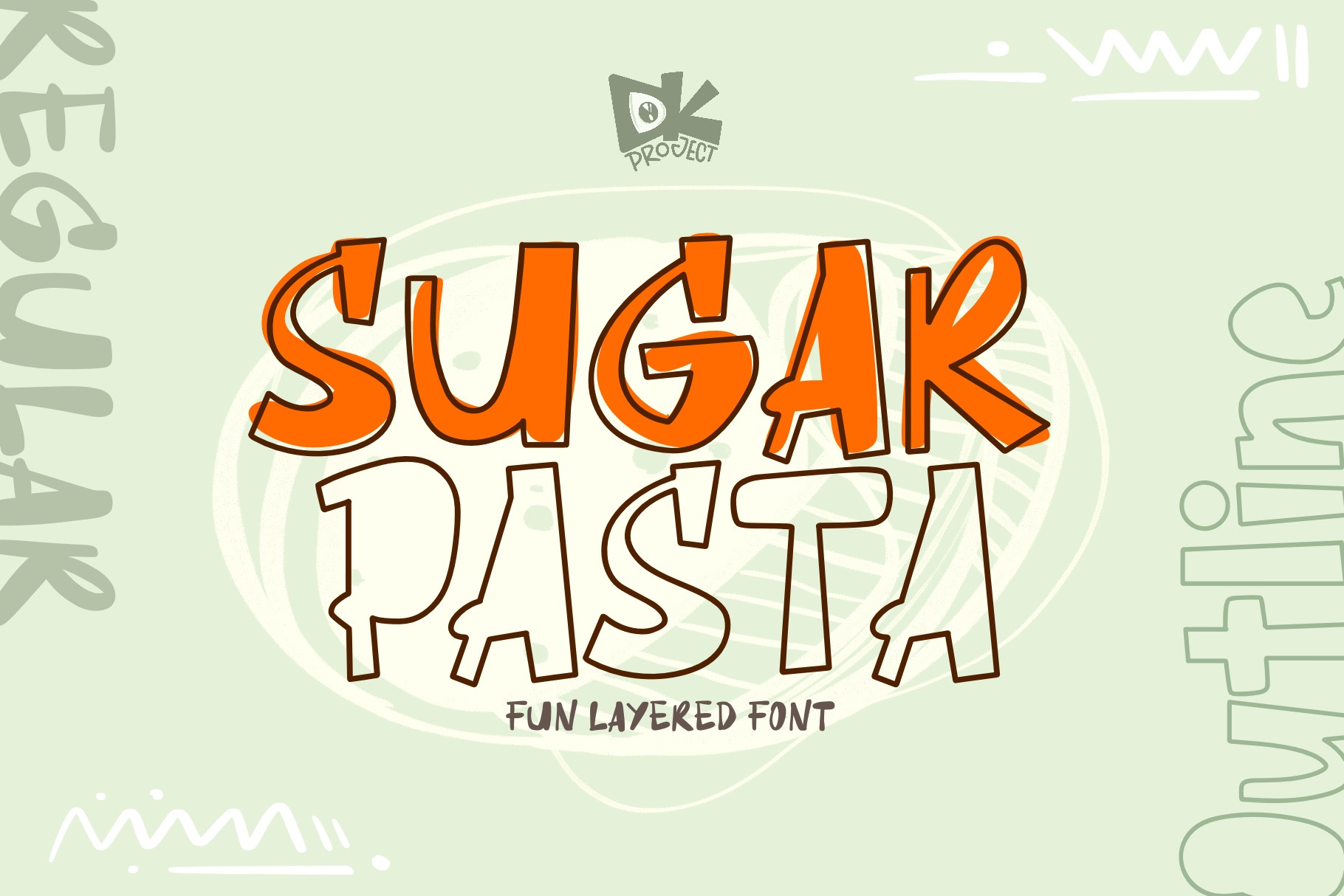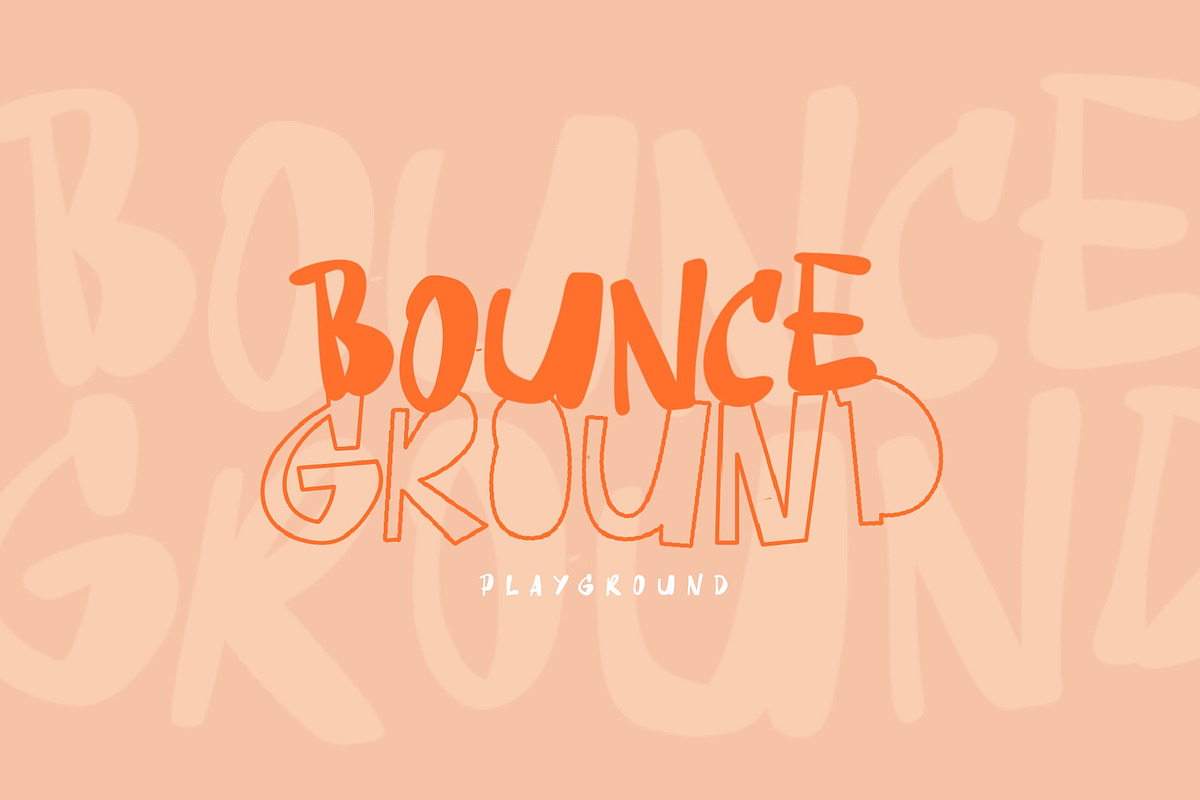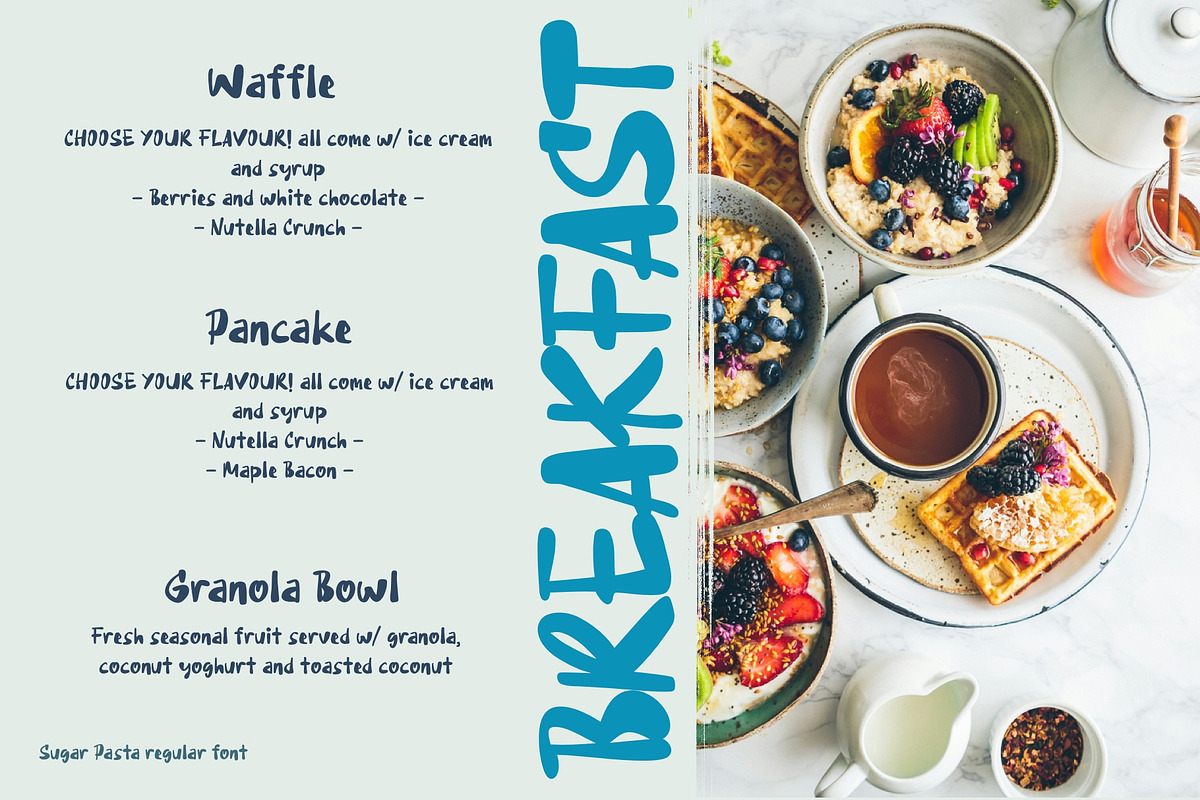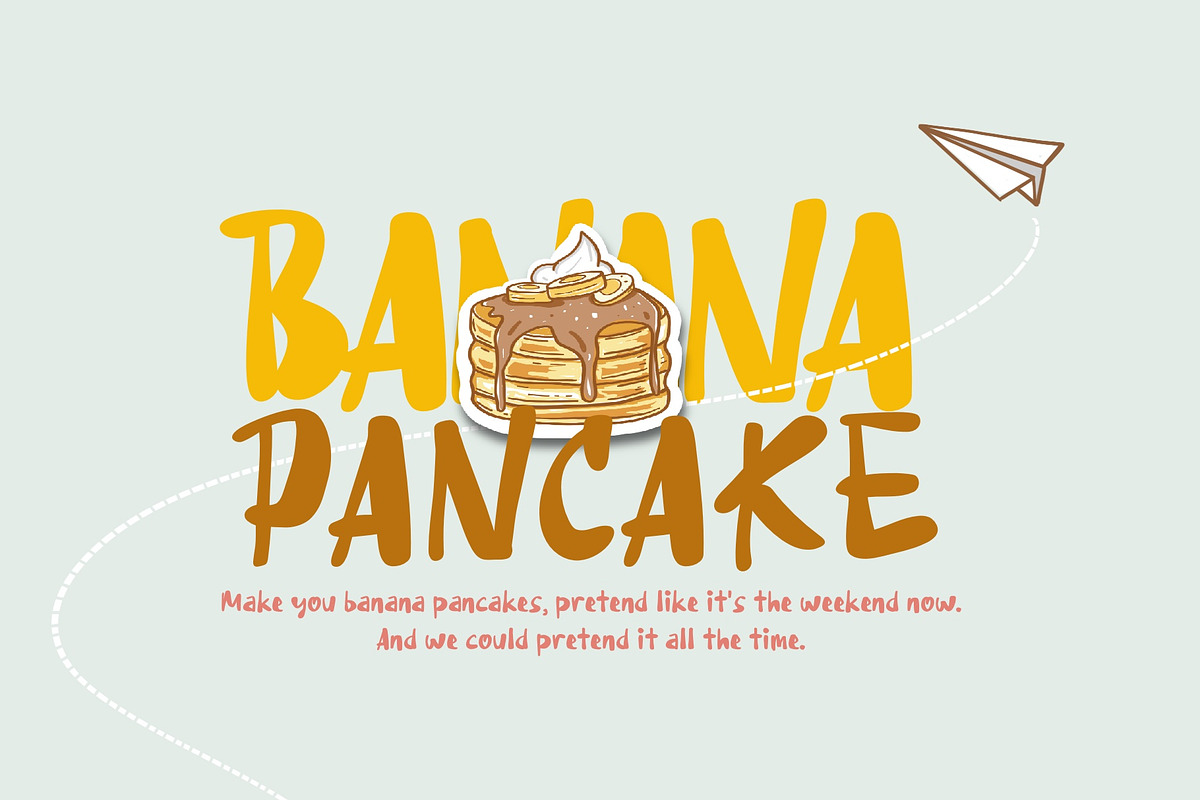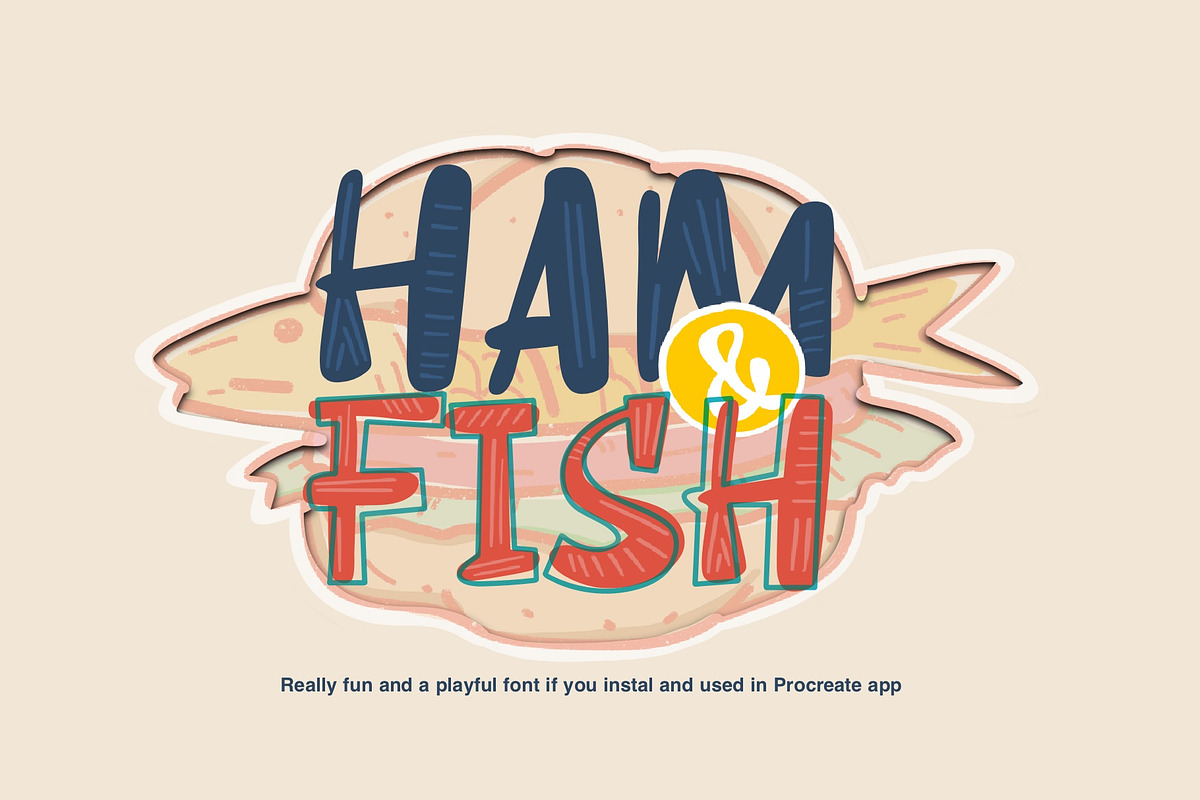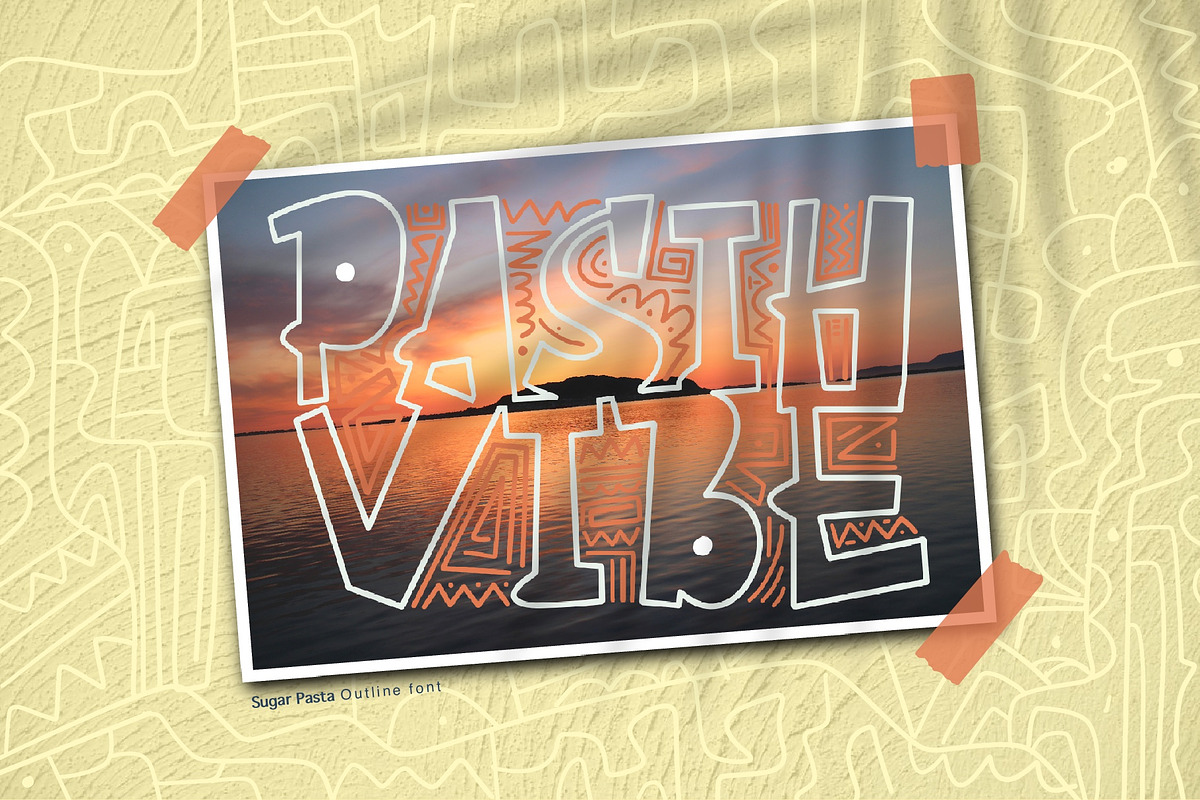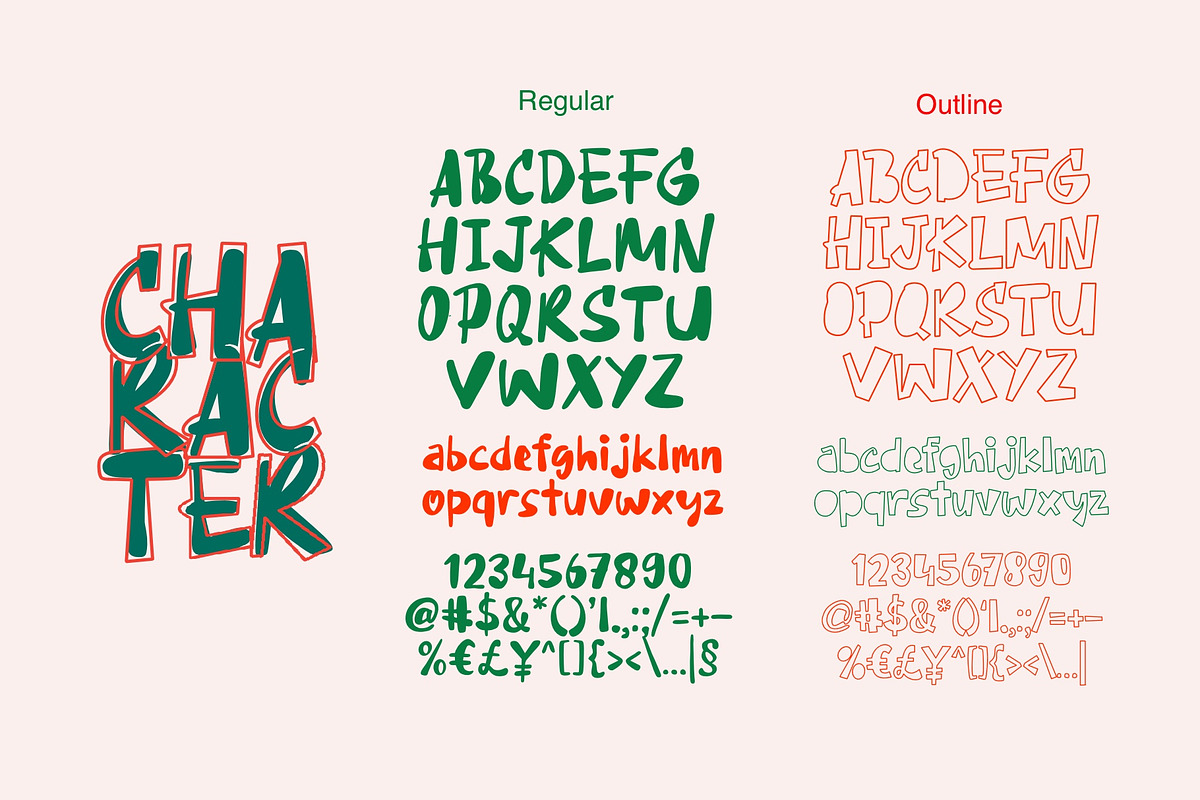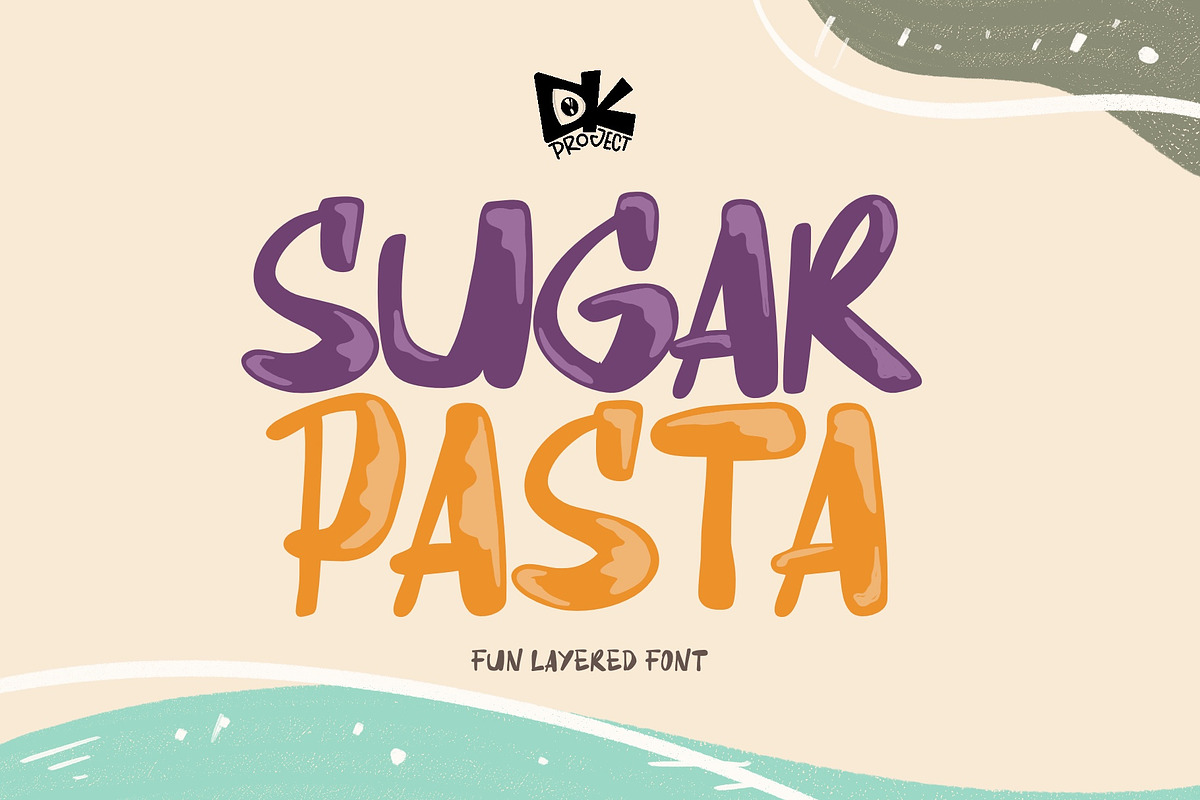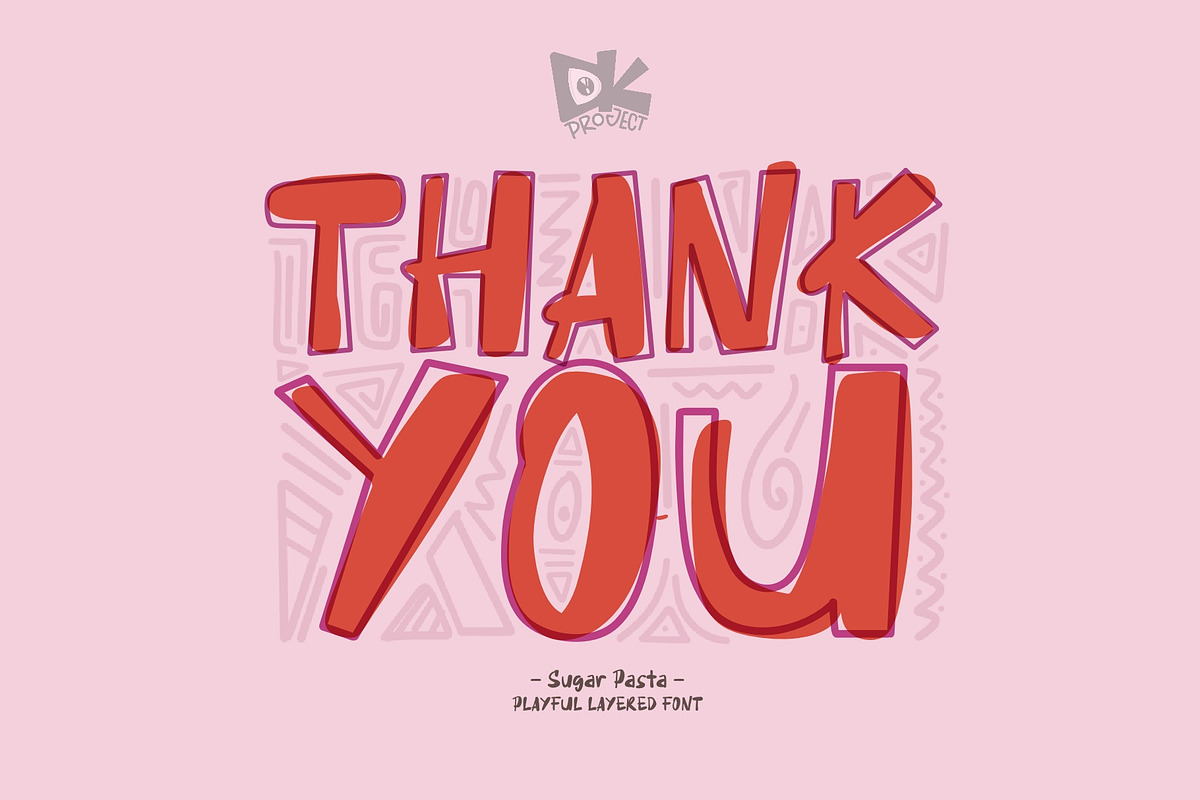
Sugar Pasta font
Sugar Pasta is unique layered font, This playful and cheerful display font combines boldness with a outline style (you can layered it front or beside a font and making it perfect and make unique style, really playful to used this font :)
You will get 2 style font Regular and Outline and standart typeface with OTF and TTF also with punctuations, number and standard multi linguals.